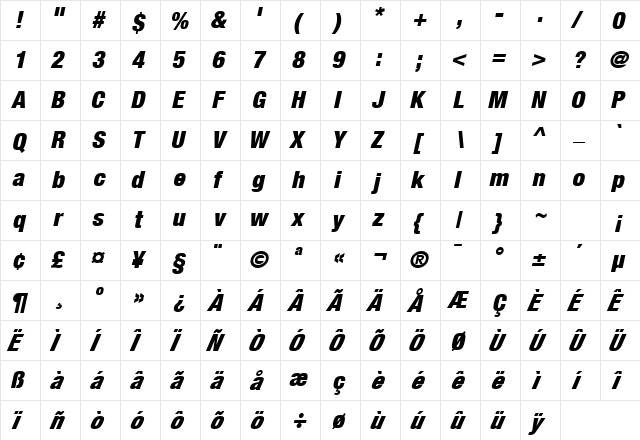
HeaveneticaCond9 BlkOblSH Font Preview
HeaveneticaCond9 BlkOblSH
Design Context for HeaveneticaCond9 Typeface
HeaveneticaCond9 offers clean, dependable letterforms without strong stylistic allegiance, making it a practical choice for designers who need flexibility. Its narrow stance lets it pack a punch even in space-constrained designs.